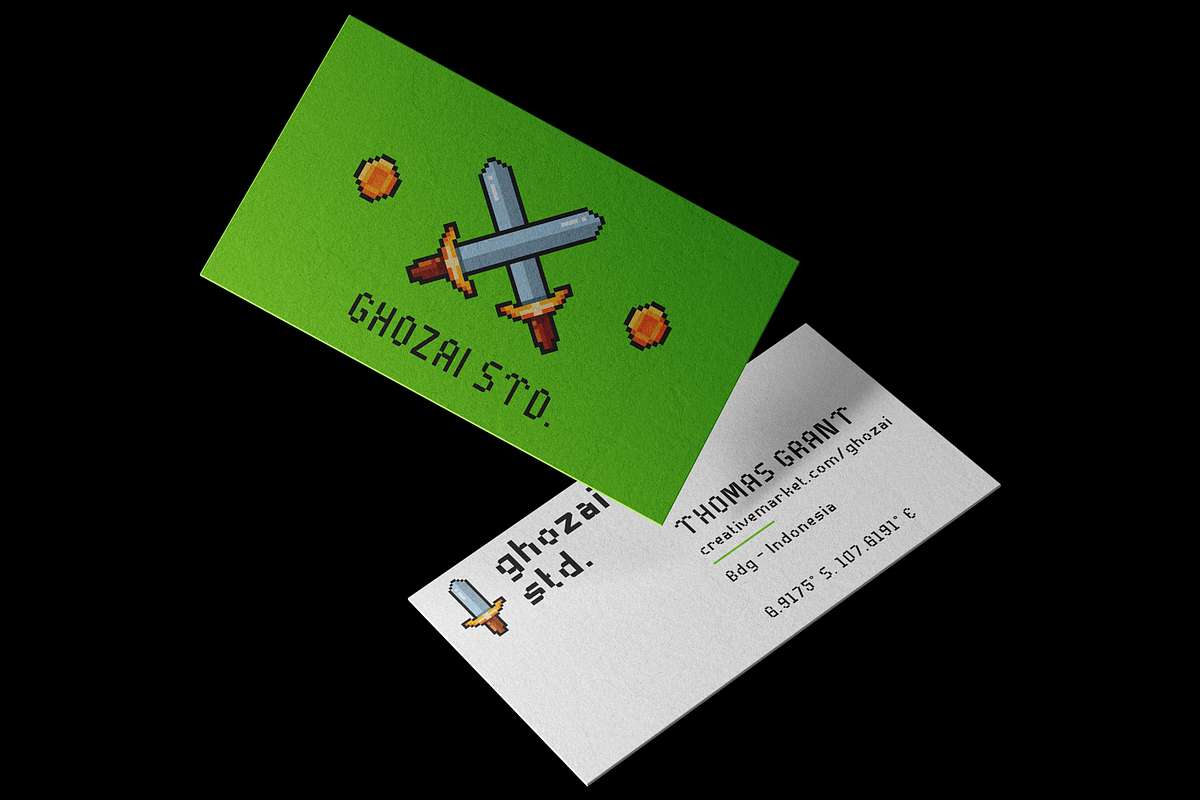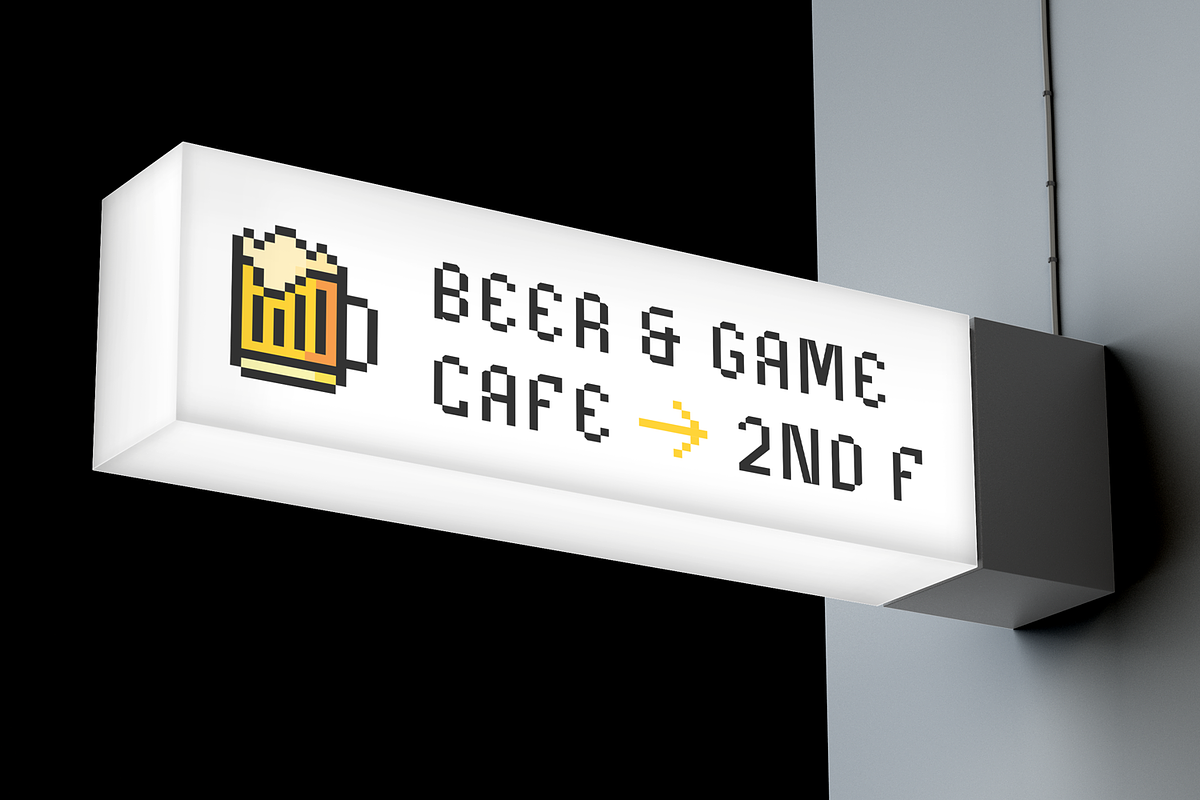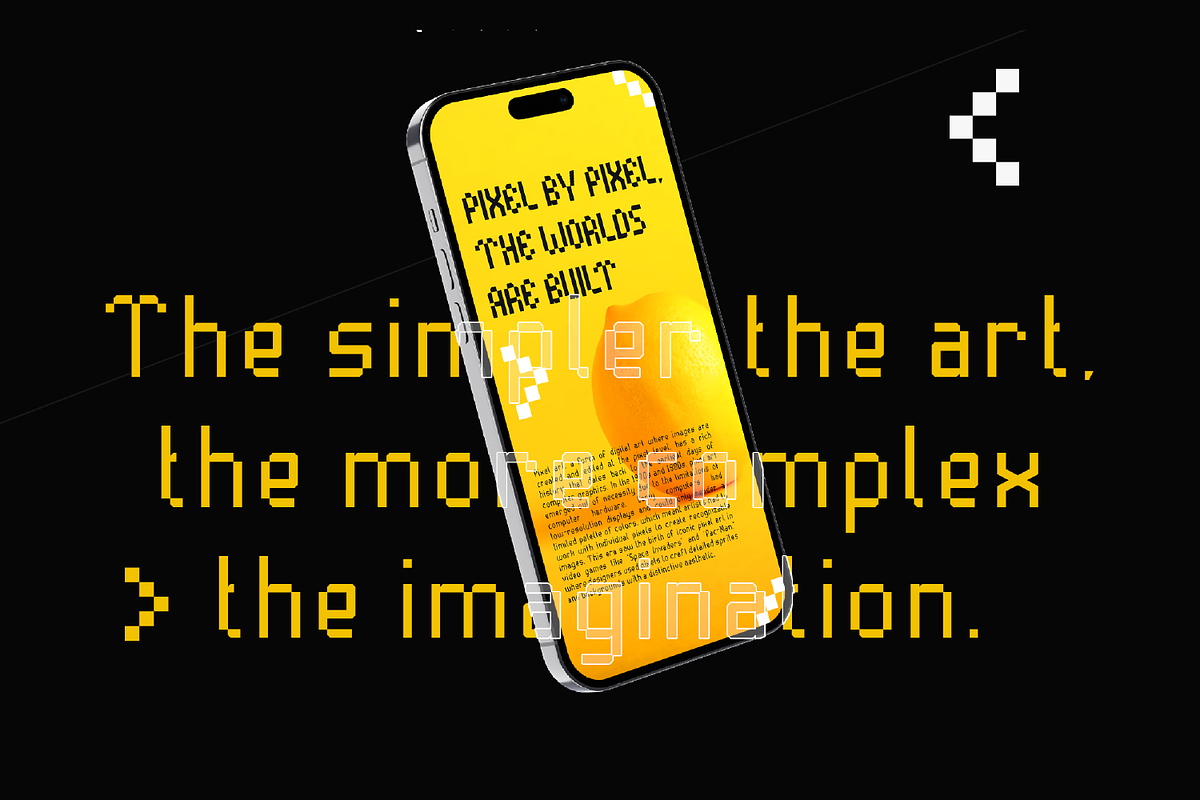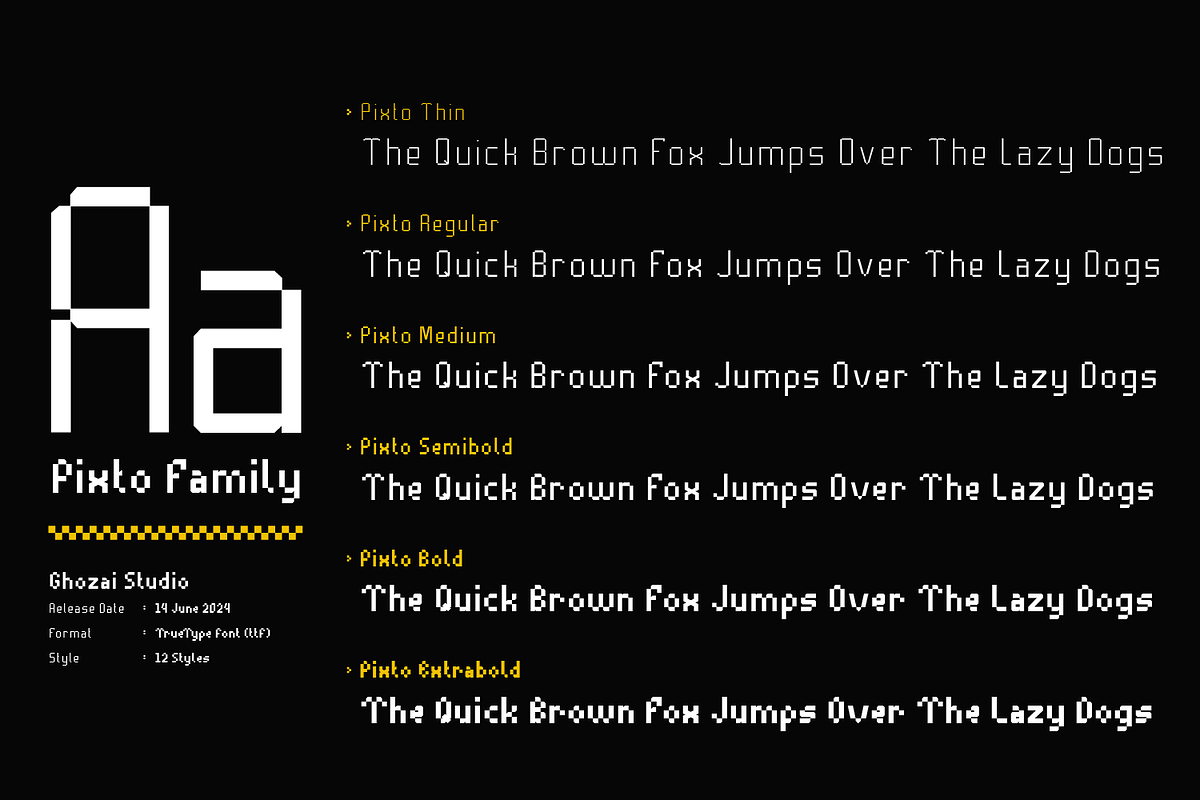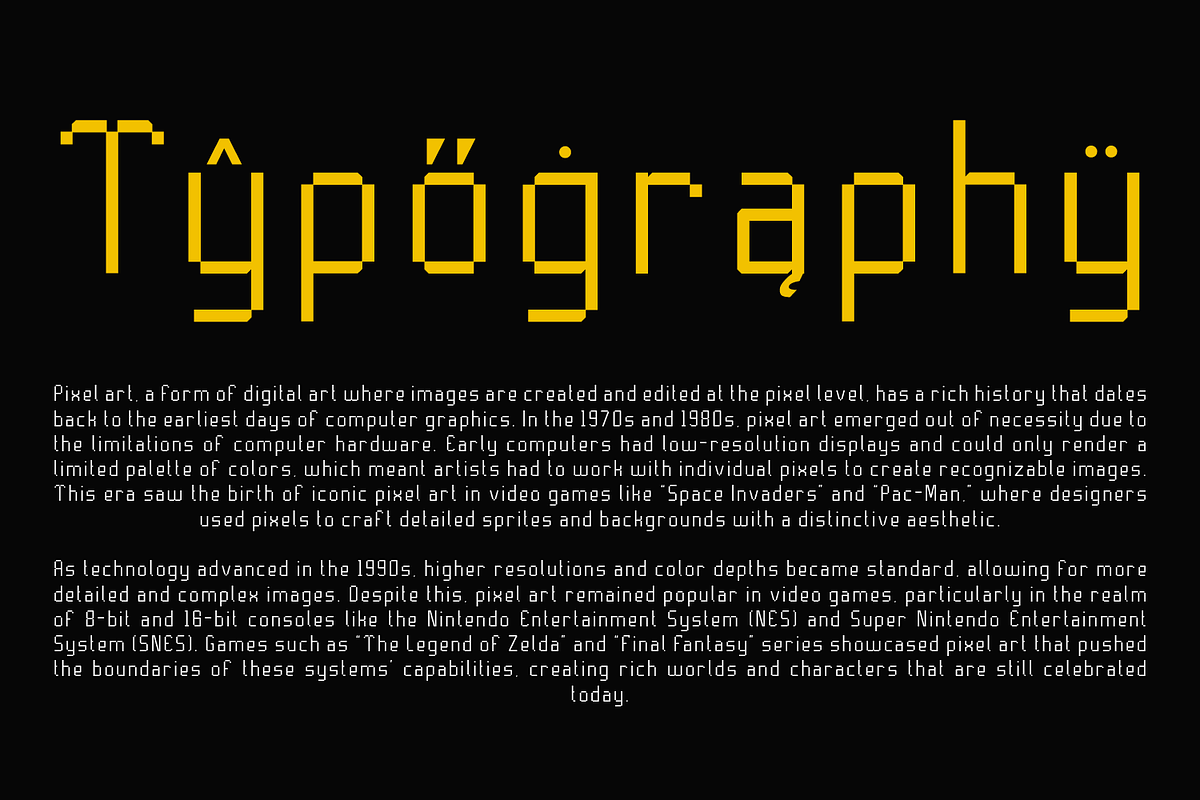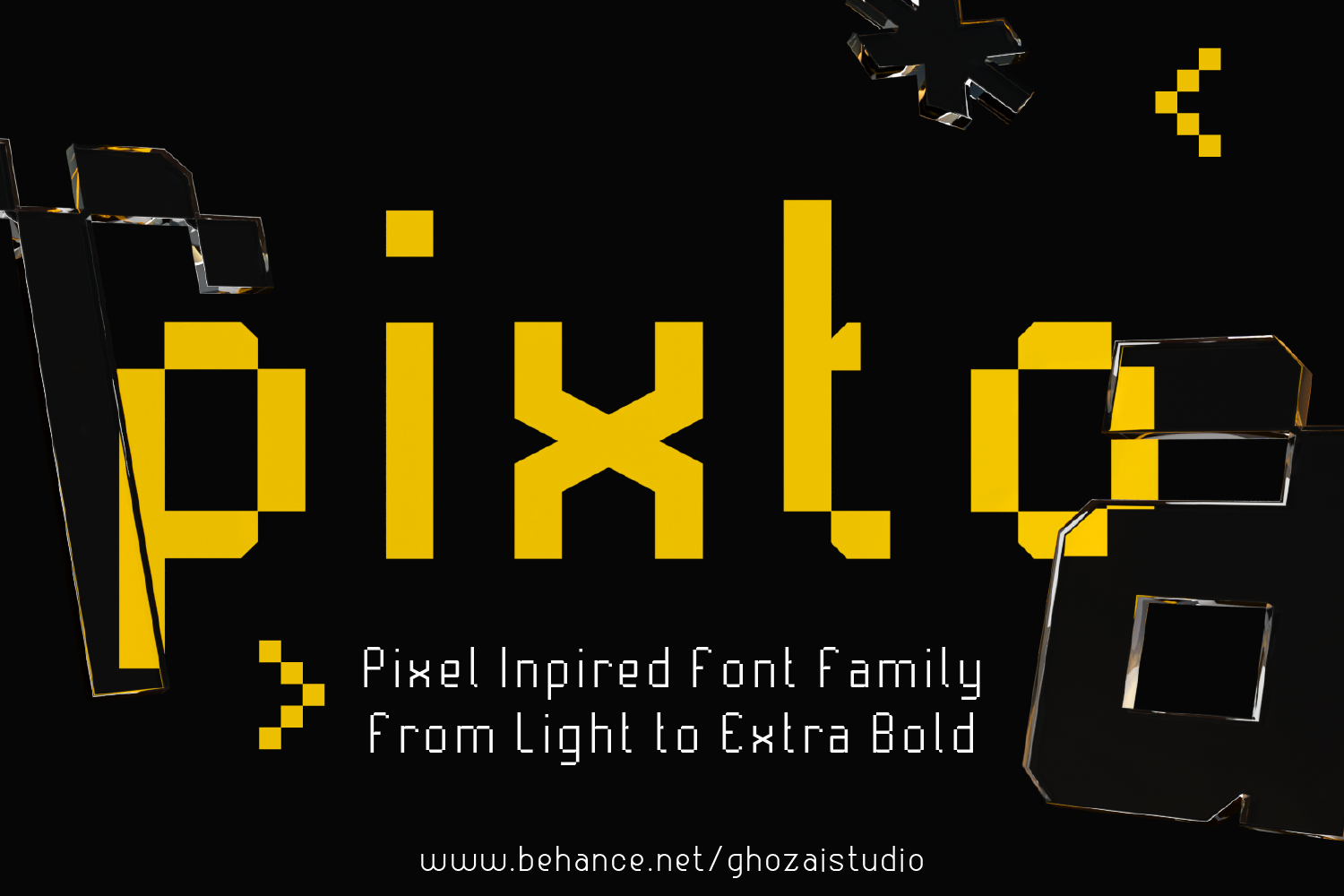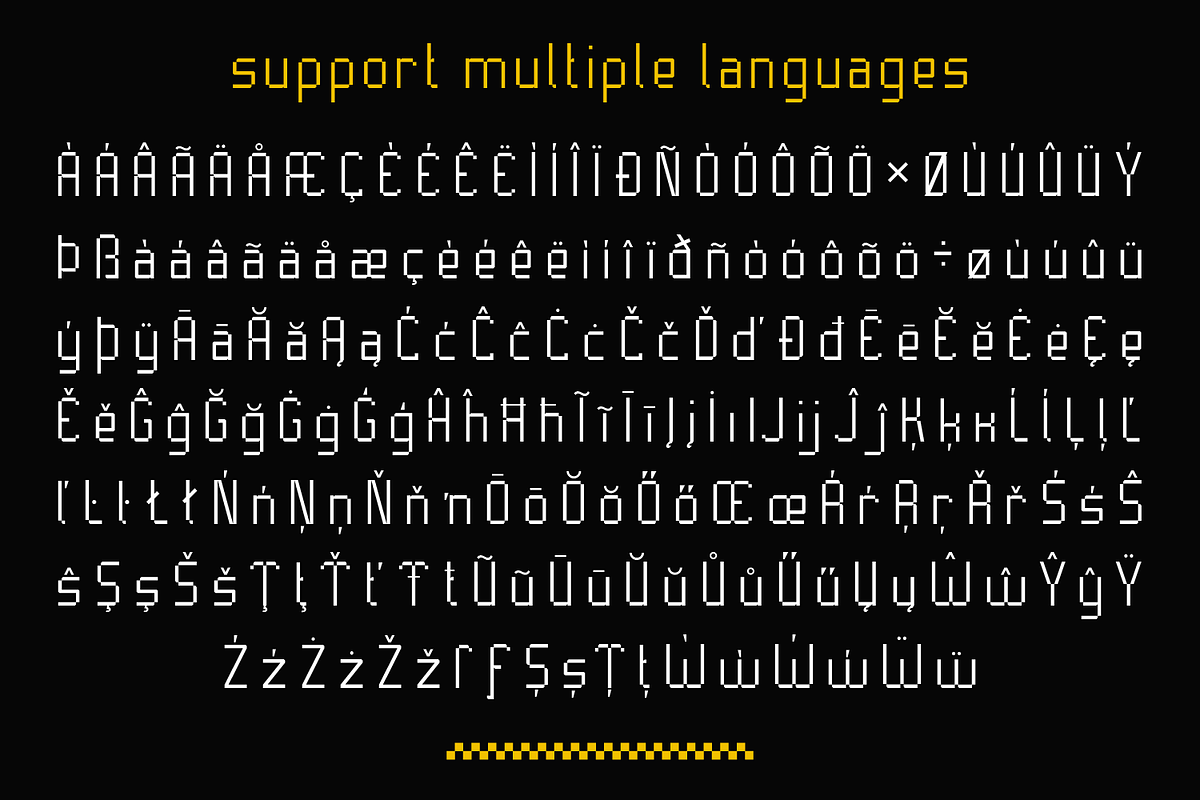
Pixto - Pixel Inspired Font
Pixto draws inspiration from pixel fonts, monospace fonts, and retro games, featuring simpler and more straightforward shapes. Unlike traditional pixel fonts, Pixto utilizes octagonal edges to add a unique accent. The Pixto Family offers 6 styles of weight options.
Picto family is versatile and suitable for any design projects centered on mathematics, science, computers, branding, games, and UI / UX applications.